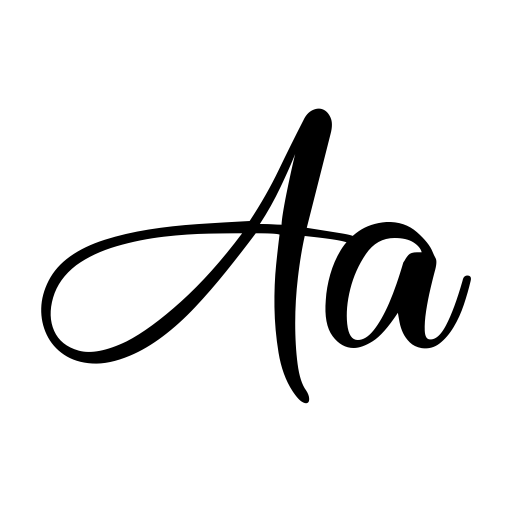
Athena of the Ocean is an elegant script font characterized by its flowing, graceful strokes and decorative flourishes, creating a refined yet playful look. Its varying stroke widths and smooth curves give it a handcrafted, artistic feel that works beautifully for invitations, branding, and any design seeking a sophisticated, feminine touch. This font shines in headlines, logos, and creative projects where a sense of elegance and personality is essential.
Athena of the Ocean Font
About Athena of the Ocean Font
| Designer | C.T.B |